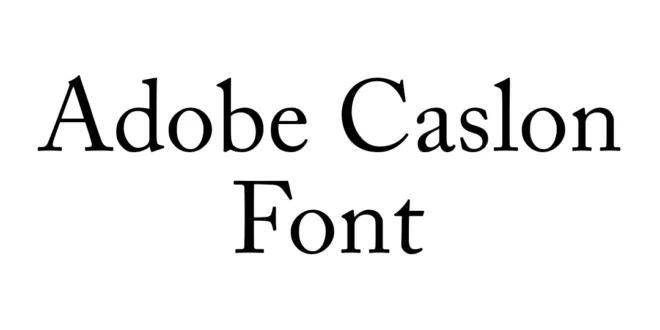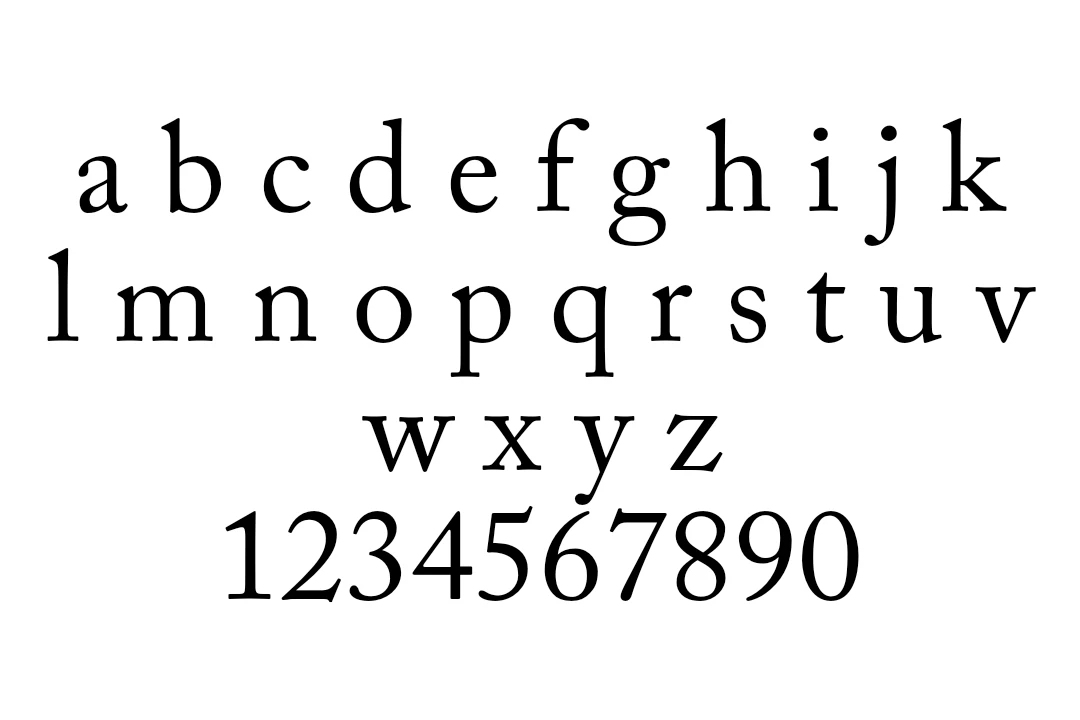
Adobe Caslon Font
Adobe Caslon Font is a serif typeface that is very famous due to its classic features. This new font was initially created by a very well-known designer named Carol Twombly.
It is an Adobe font that was published by Adobe. It has bold, bold italic, regular, and semi-bold styles that are so famous in the whole world.
This staggering typeface is useful in display text styles, and it is also specified in CSS.
The history of this font is so famous all over the world, and everyone knows about the advanced features and usage of this typeface.
It was so famous in the 18th century; that’s why the number of its users was so high. Its closest Arkibal font is very effective.
Uses of Adobe Caslon Font
You can utilise this serif font for assembling your documents and their design objectives. It is perfect for various notable projects like company logos, institution logos, making posters, and banner designs.
This typeface is perfect for use in various types of card designs, such as business and invitation cards.
Many people use this font in different Microsoft applications, like MS Word, etc.
A lot of users of this typeface use this typeface for authorised writing purposes. You can utilise this font for fashion magazines and novel purposes. You can use this typeface for different secret tasks and special signatures.
Who Created the Adobe Caslon Font?
This interesting typeface was designed by Carol Twombly. It is the first designer of this font that was published in the design market.
What font is close to Adobe Caslon Font?
Lusitana Font is very close to this serif typeface due to its similar character styles and appearance.